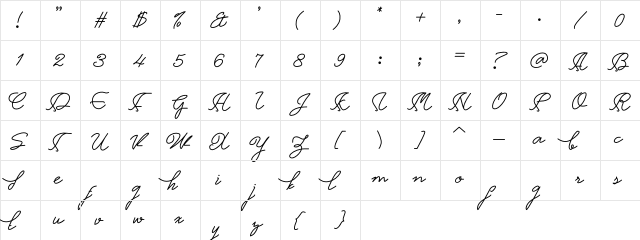
Appenzell Regular
Design Context for Appenzell Typeface
Appenzell is a composed and adaptable typeface that performs quietly and consistently across a wide range of design contexts.